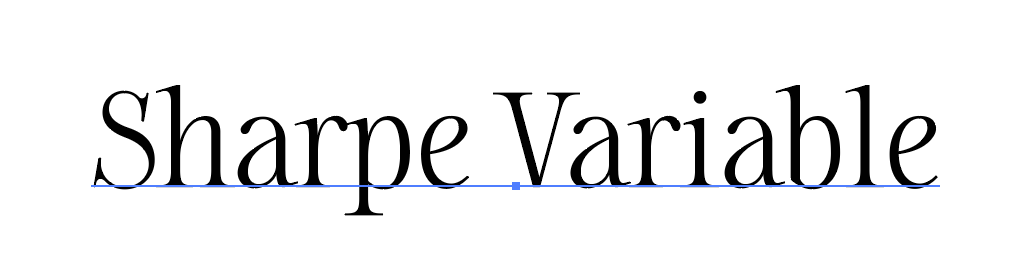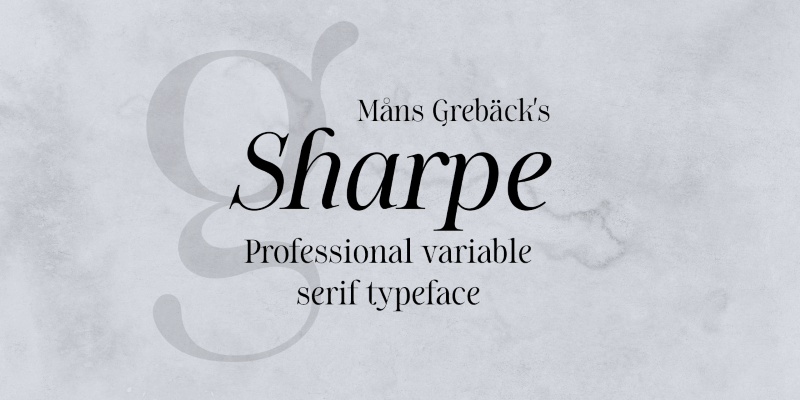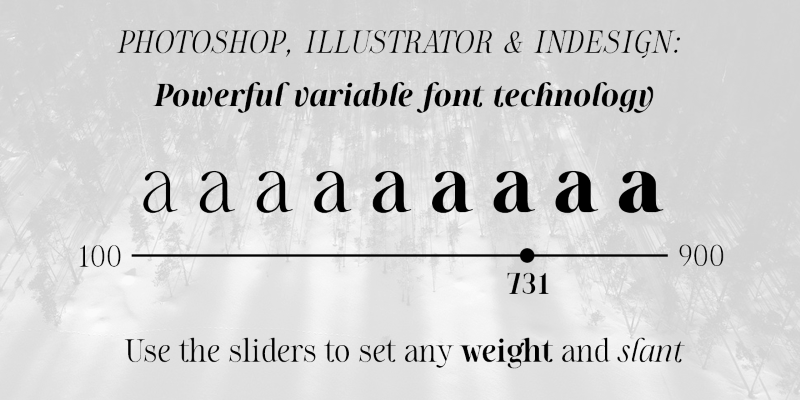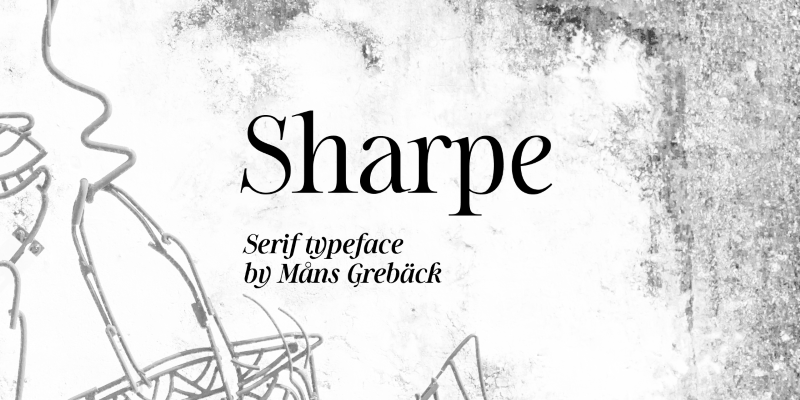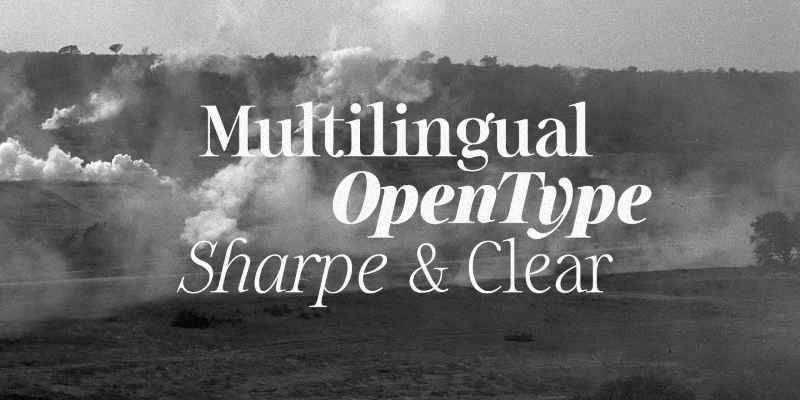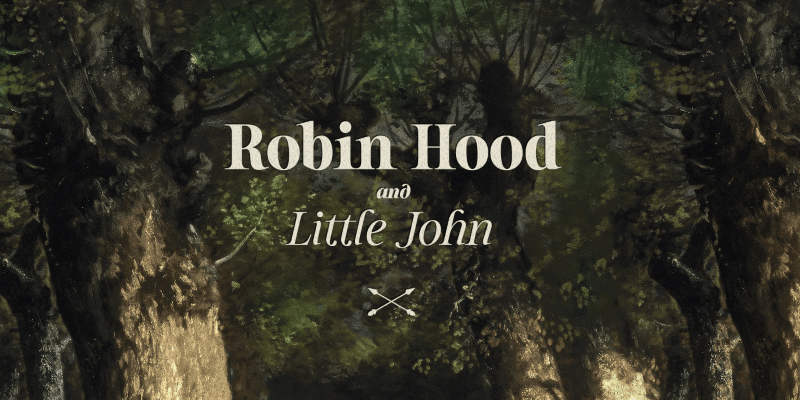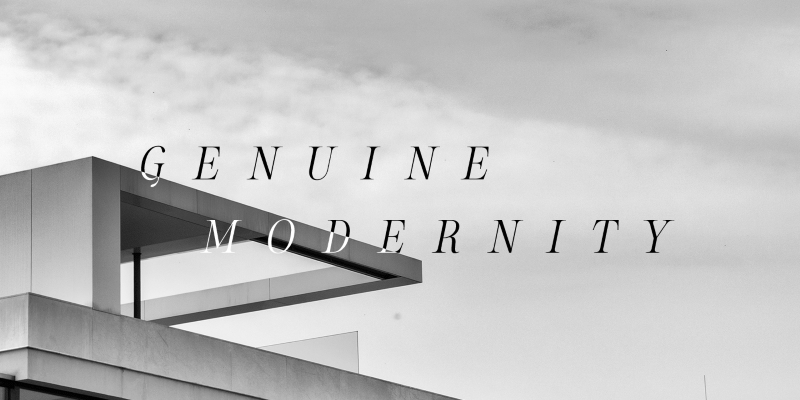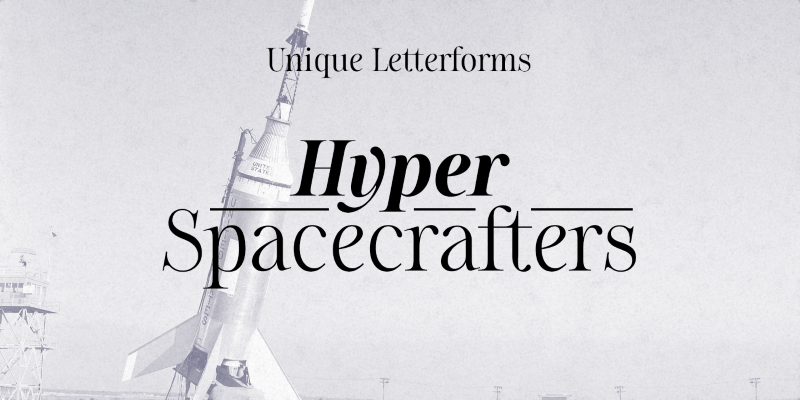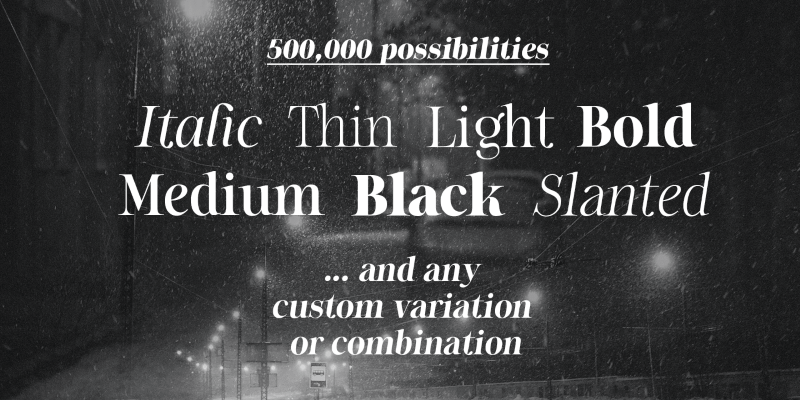
Today we've brought you an exclusive deal for the Sharpe variable font + the complete font family for desktop and web, an elegant serif font with 16 font weights and matching italics
The pack delivers files for desktop & web in on EOT, SVG, TTF, WOFF & WOFF2 with weights from thin to black as well as a TTF variable font file with multiple weights and styles - each style contains a ligatures and a variety of features, wide range of languages supported, and a stylistic serif design that you can use to make awesome display compositions
- The complete Sharpe font family + variable font file
- 16 fonts, each weight with matching italics
- Variable TTF font
- Stylish serif design